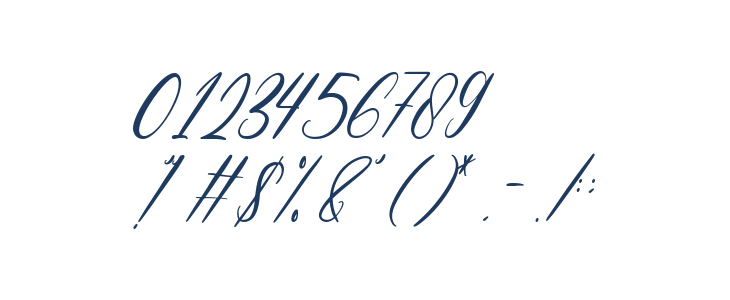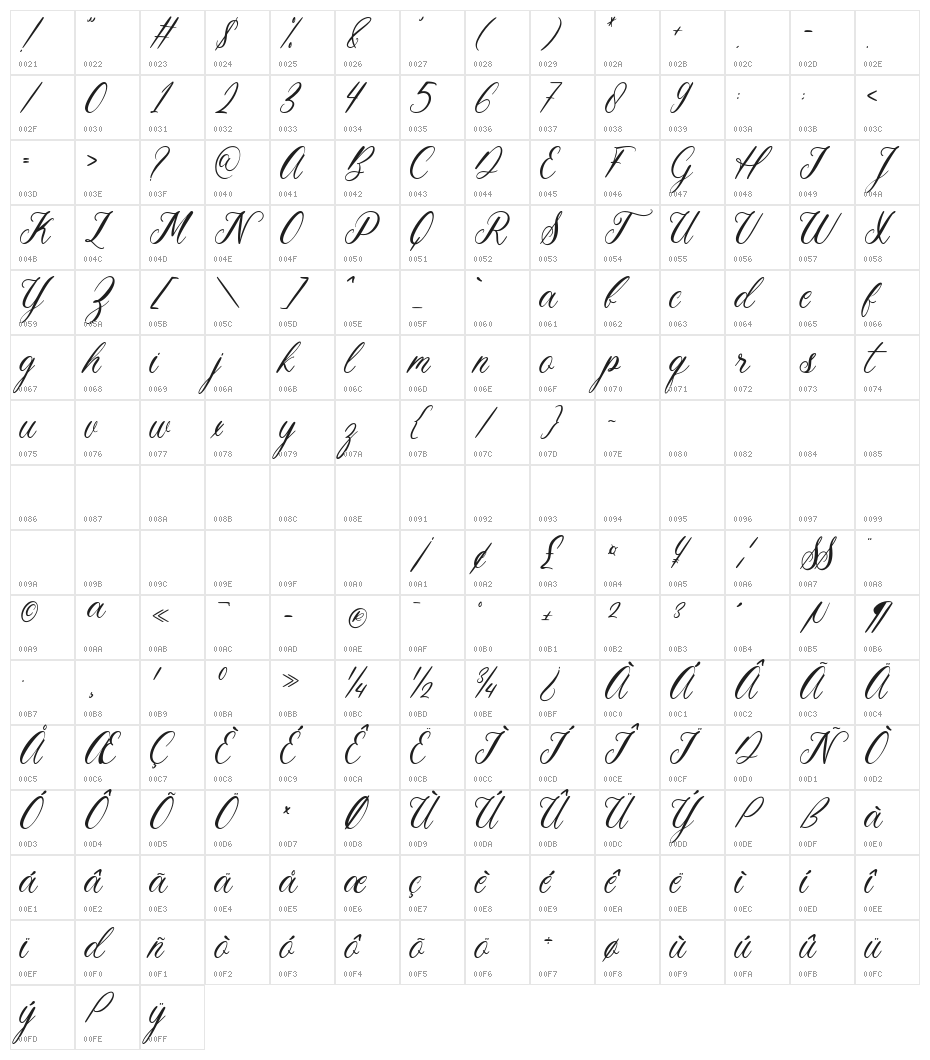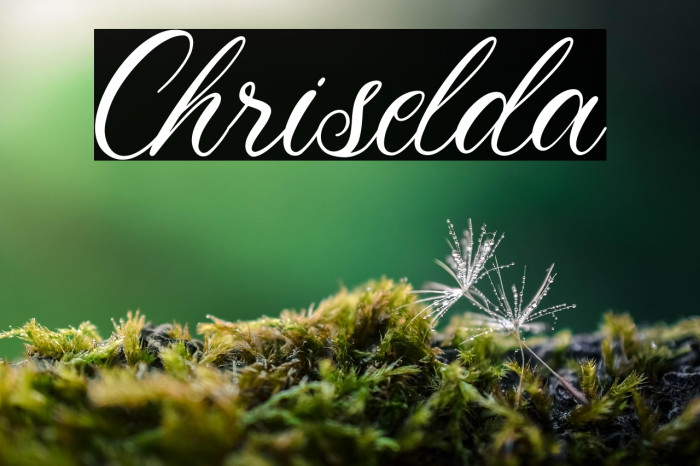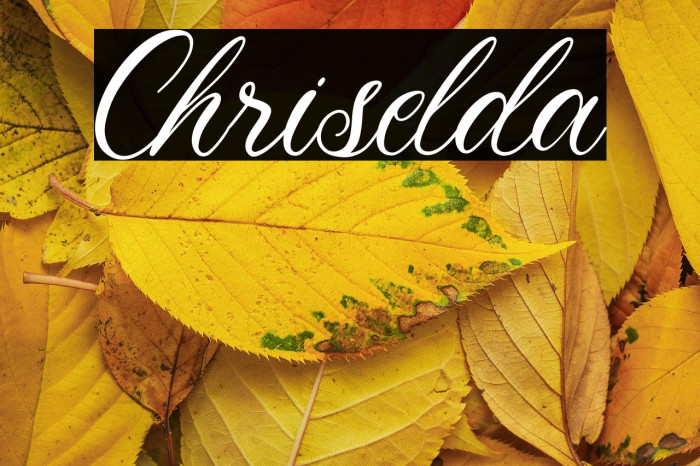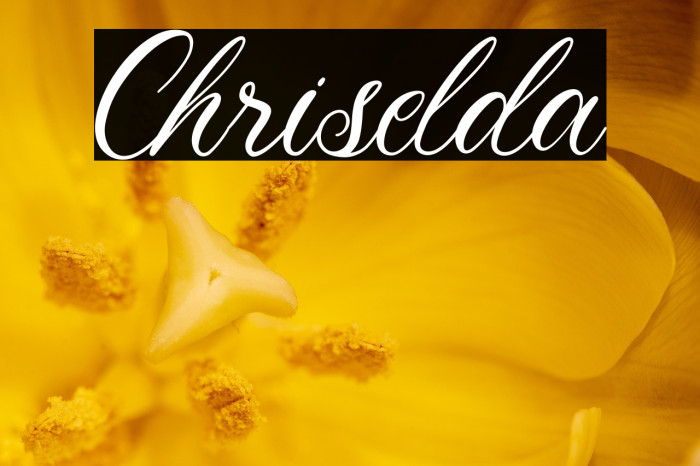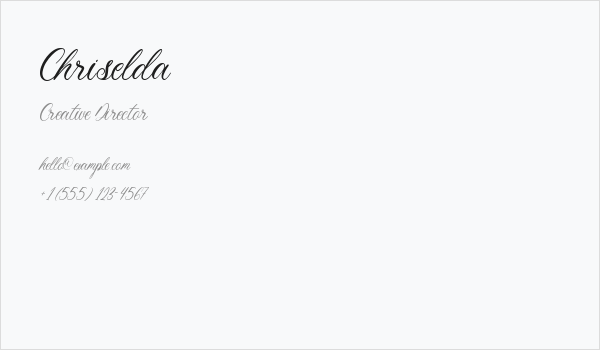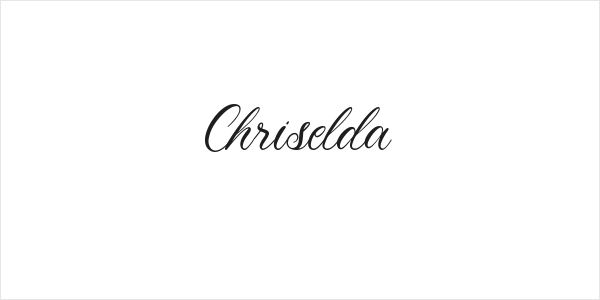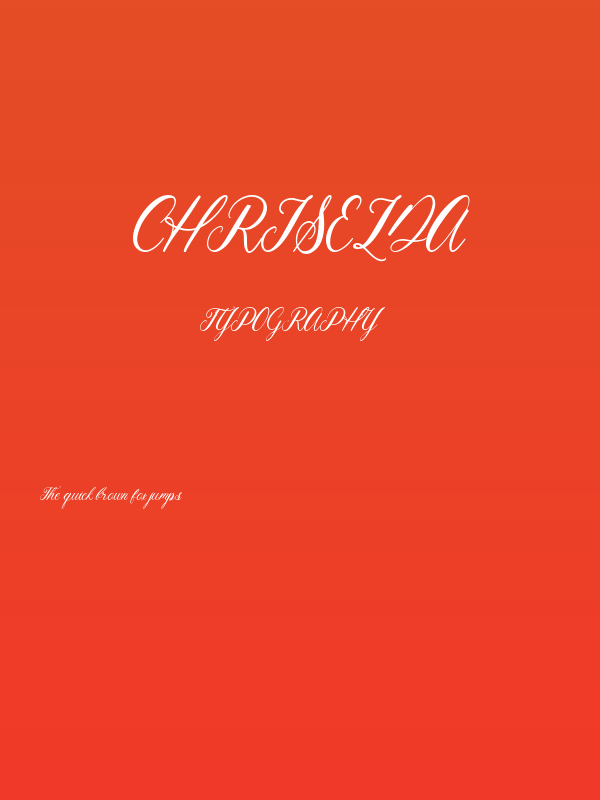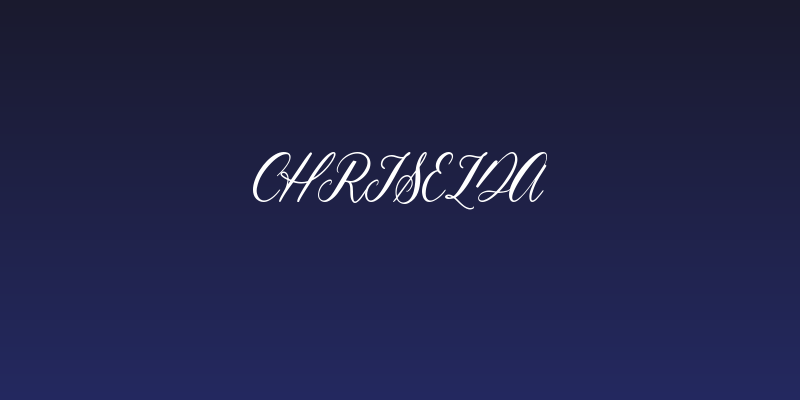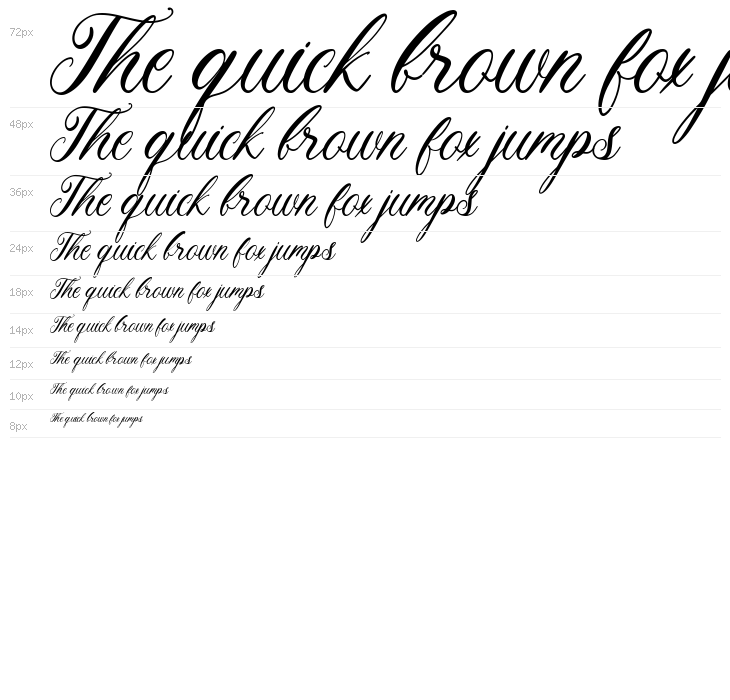
Chriselda Font
Chriselda Description
This elegant script font features flowing, cursive letters with a sophisticated flair. The uppercase letters are tall and graceful, with sweeping curves and delicate loops that convey a sense of elegance and formality. The lowercase letters maintain a consistent style, with smooth, connected strokes that enhance readability while preserving the font's decorative nature. The numerals are stylish and blend seamlessly with the alphabet, making them suitable for a variety of uses. Special characters are thoughtfully designed, adding to the font's versatility. The overall appearance is refined and polished, making it ideal for formal invitations, branding, and other projects requiring a touch of sophistication.
Overall StyleElegant, Formal
Use CaseInvitations, Branding, Stationery
Proposed ProjectsIdeal for wedding invitations, luxury branding, elegant stationery, and formal event programs.